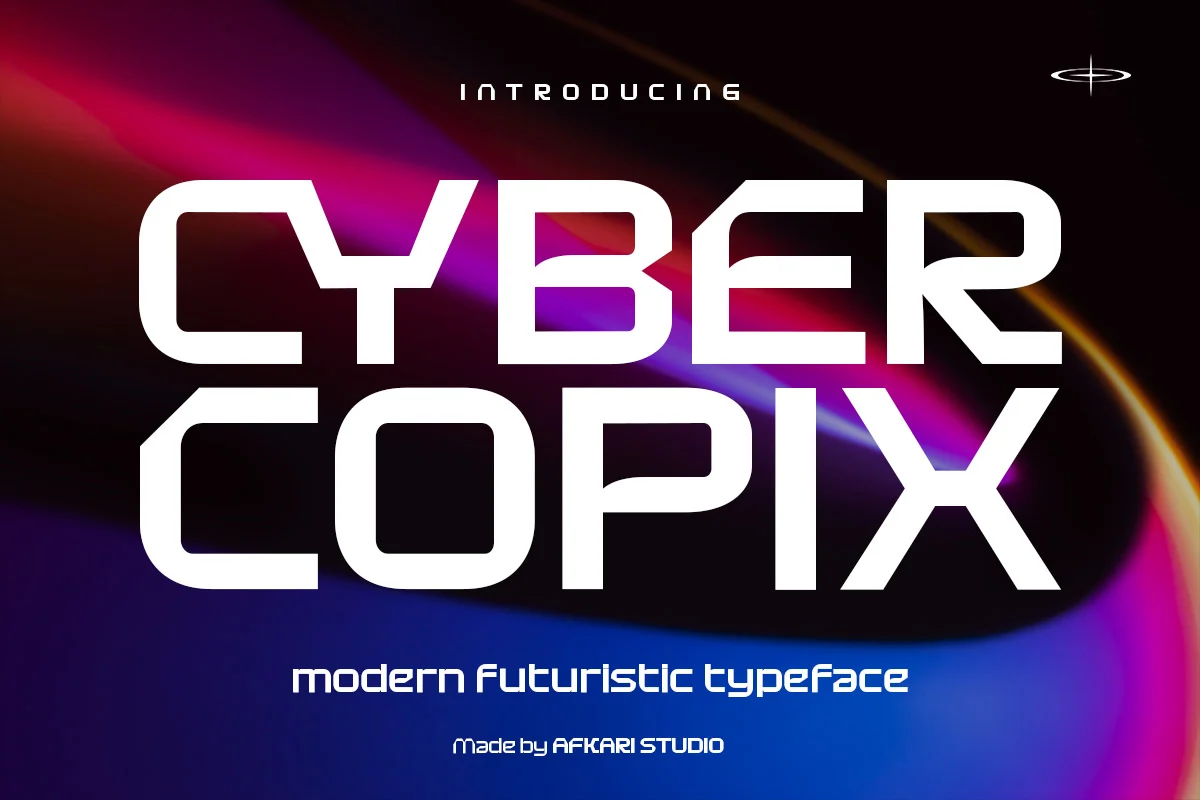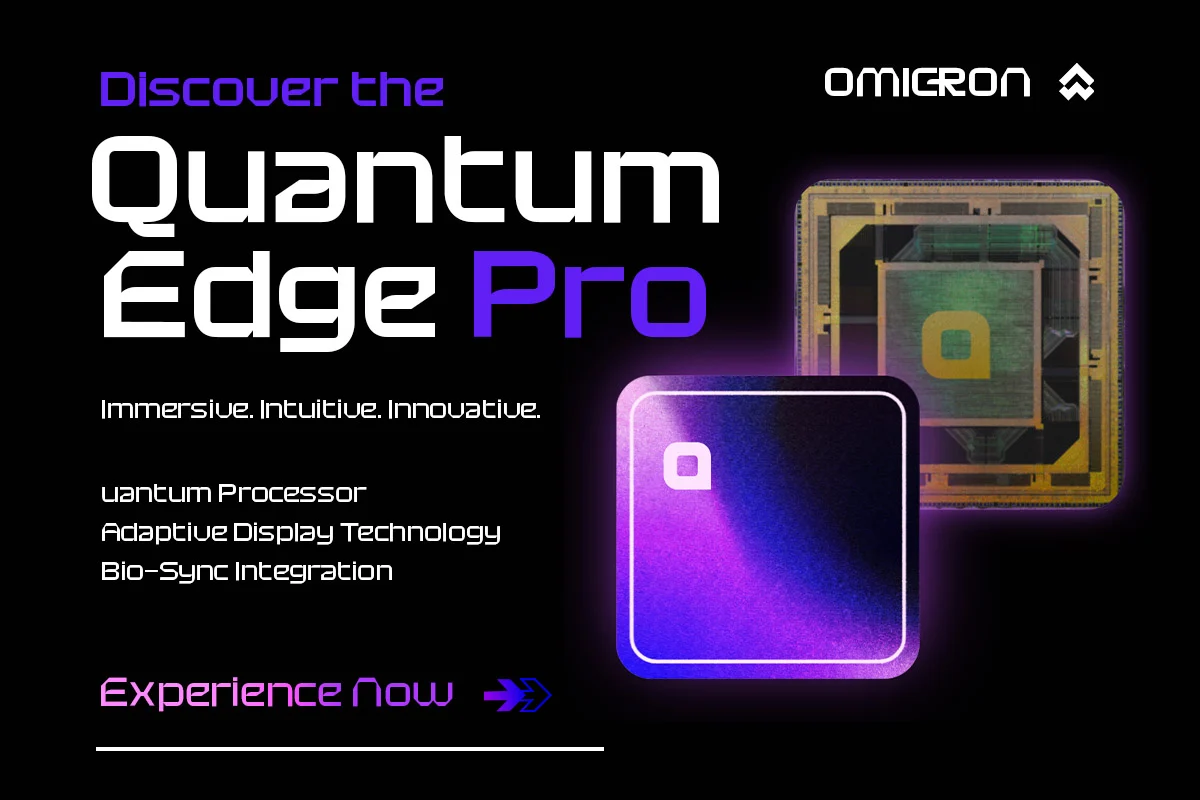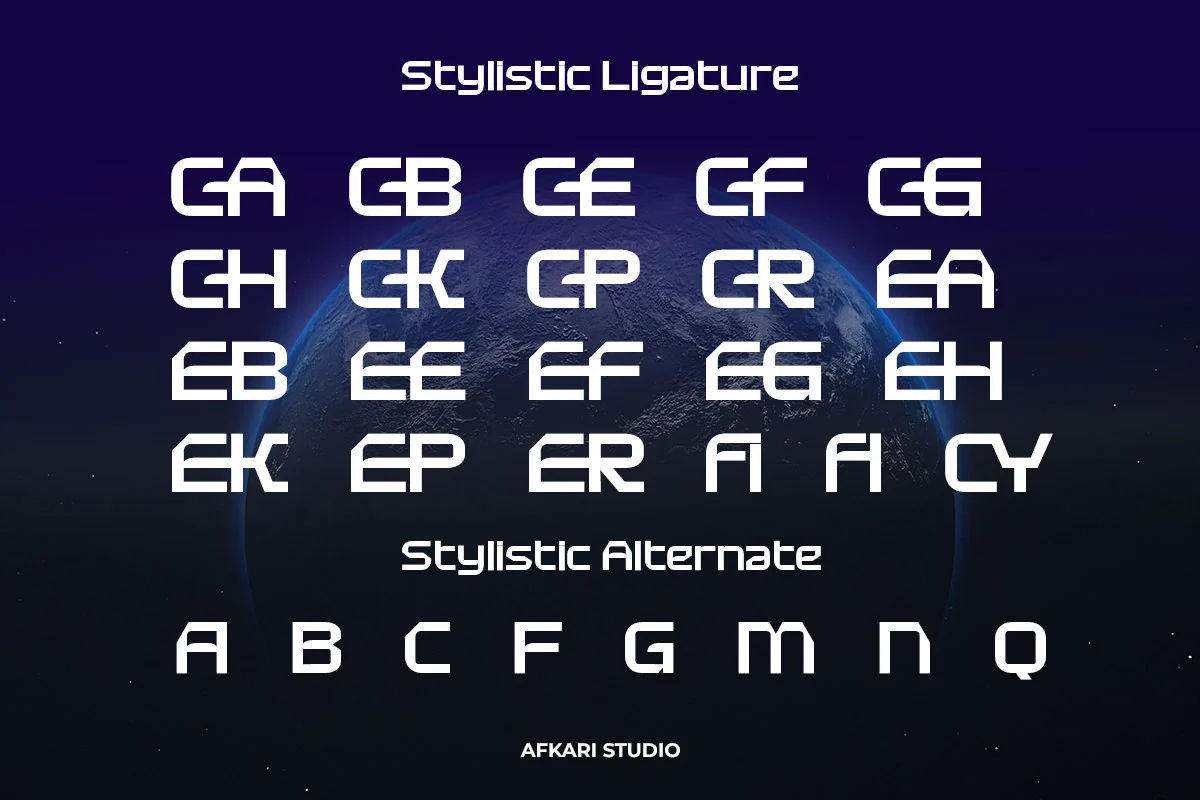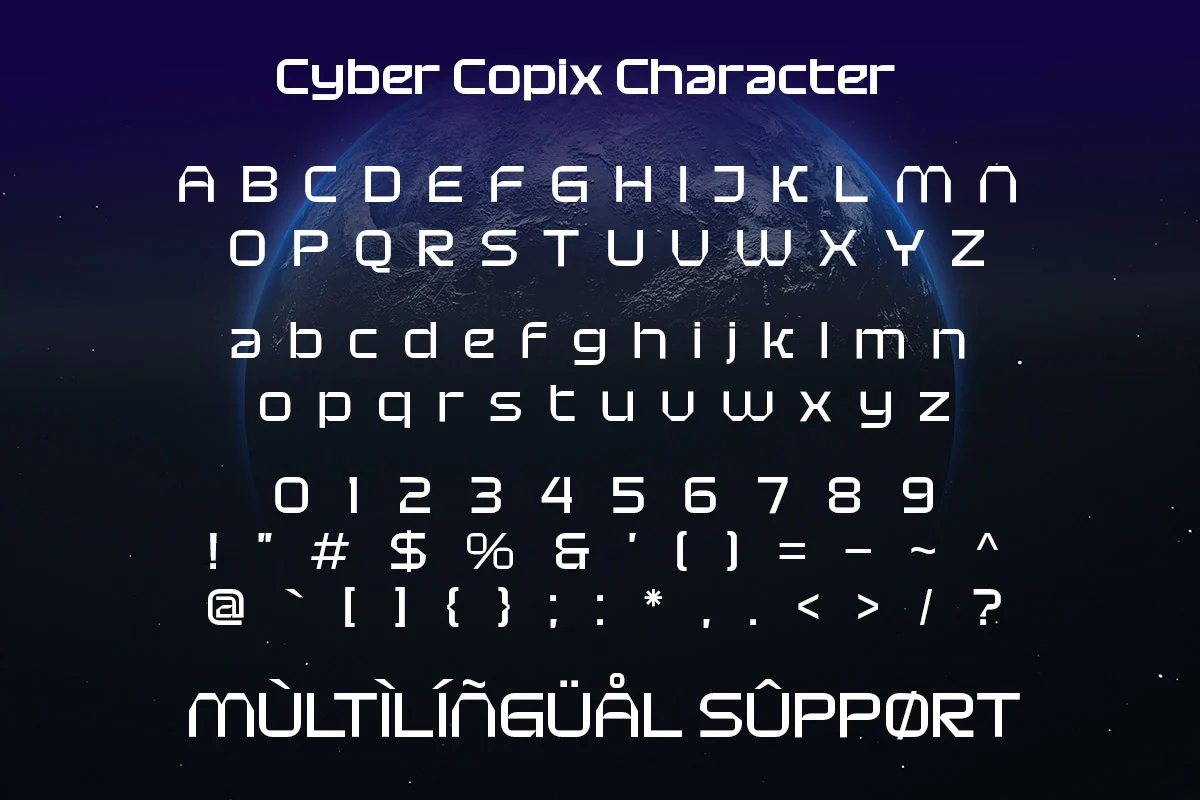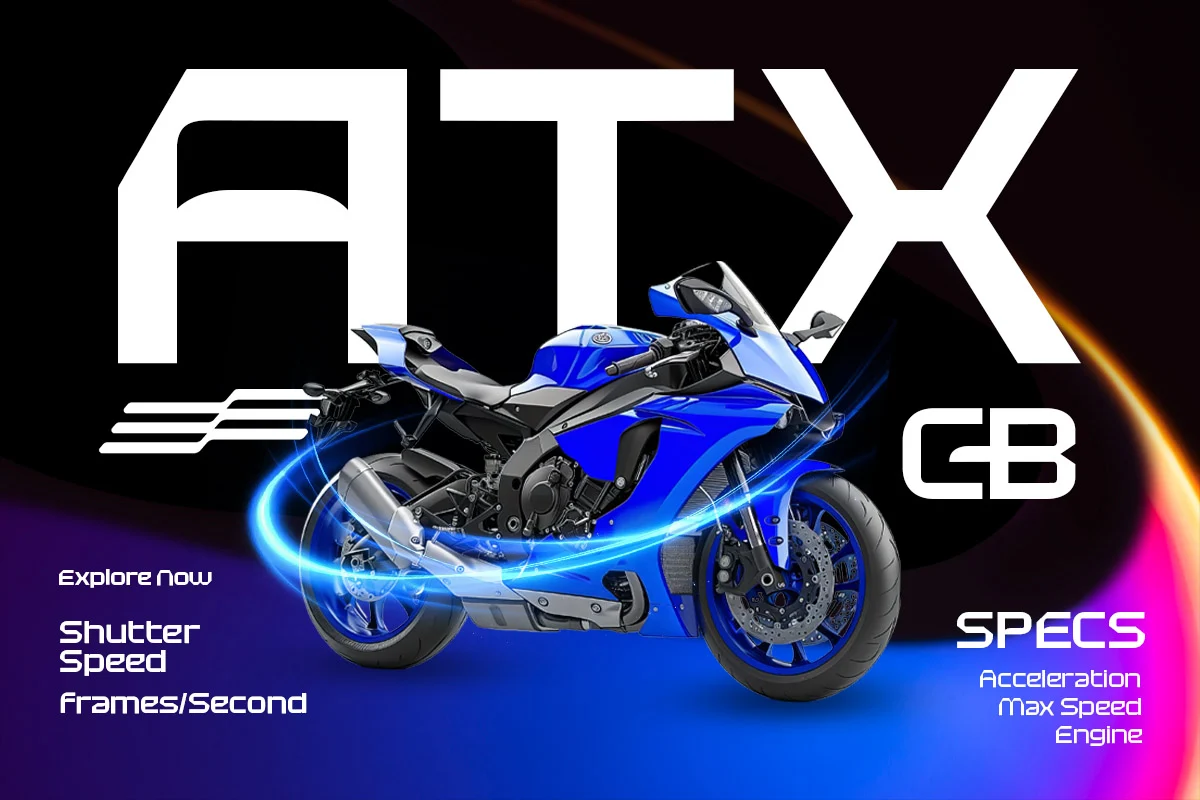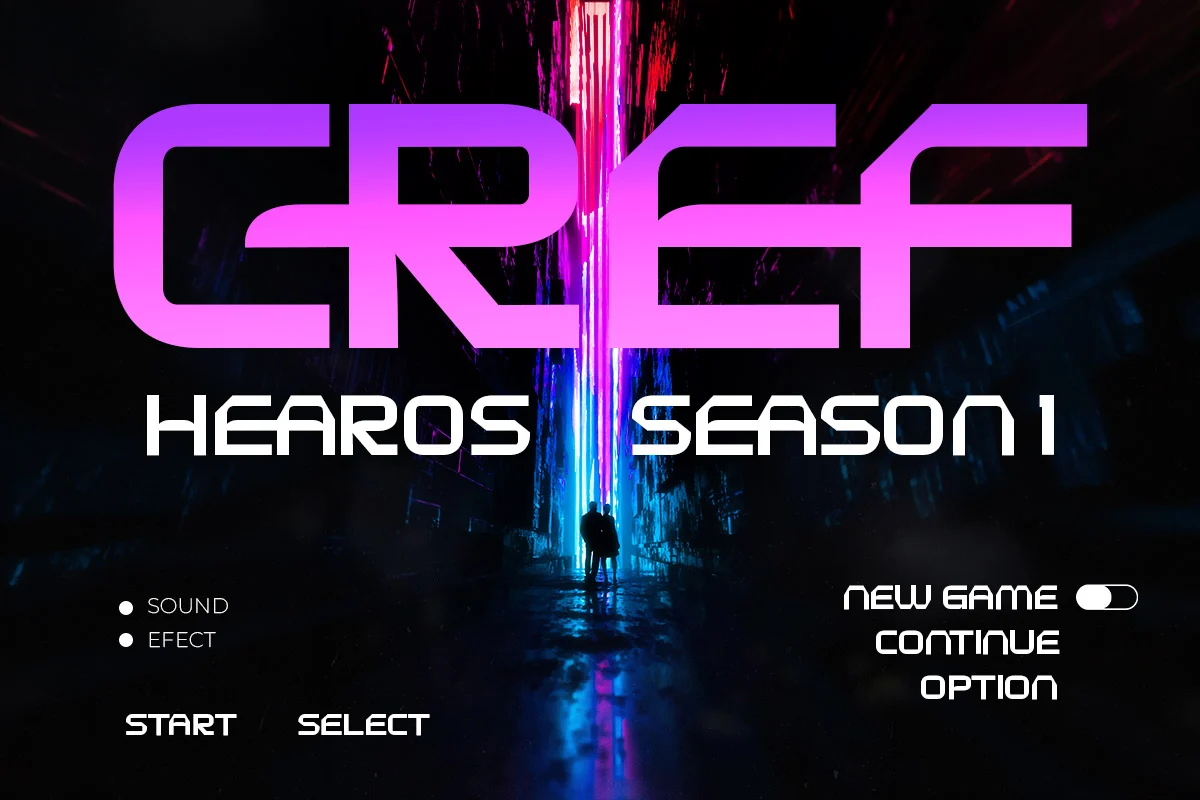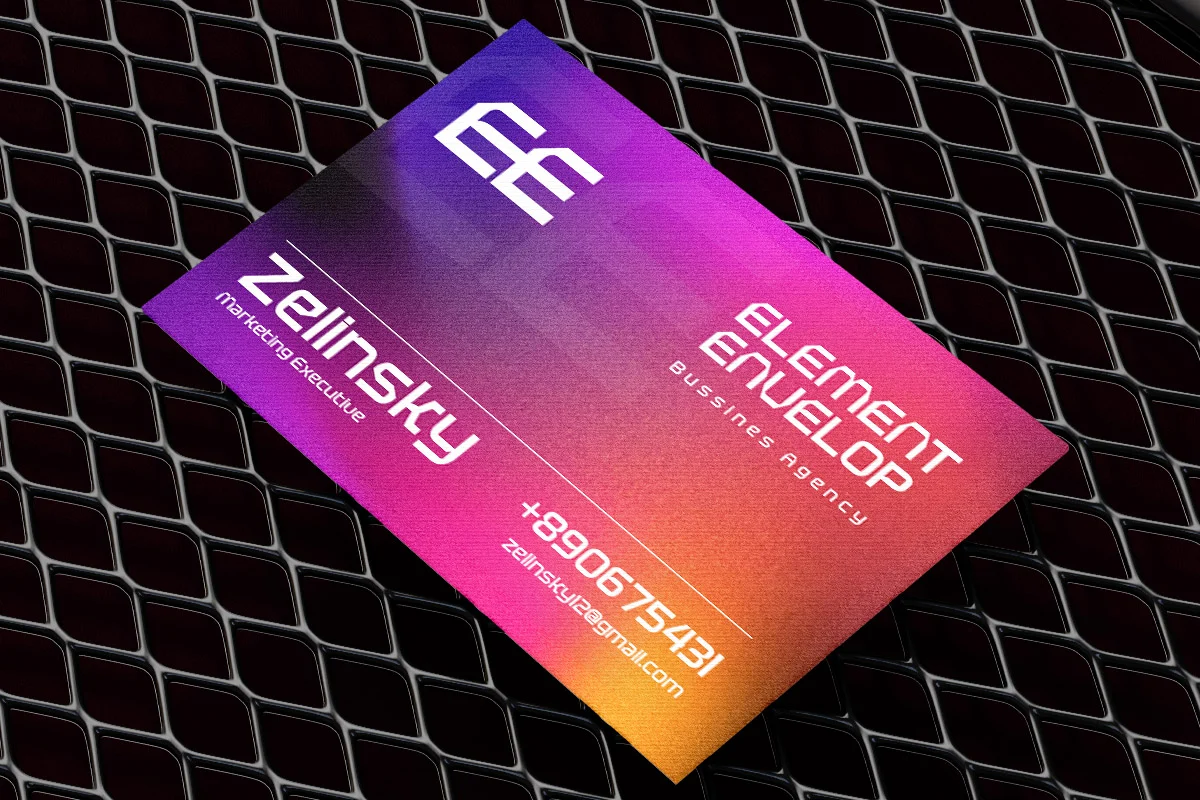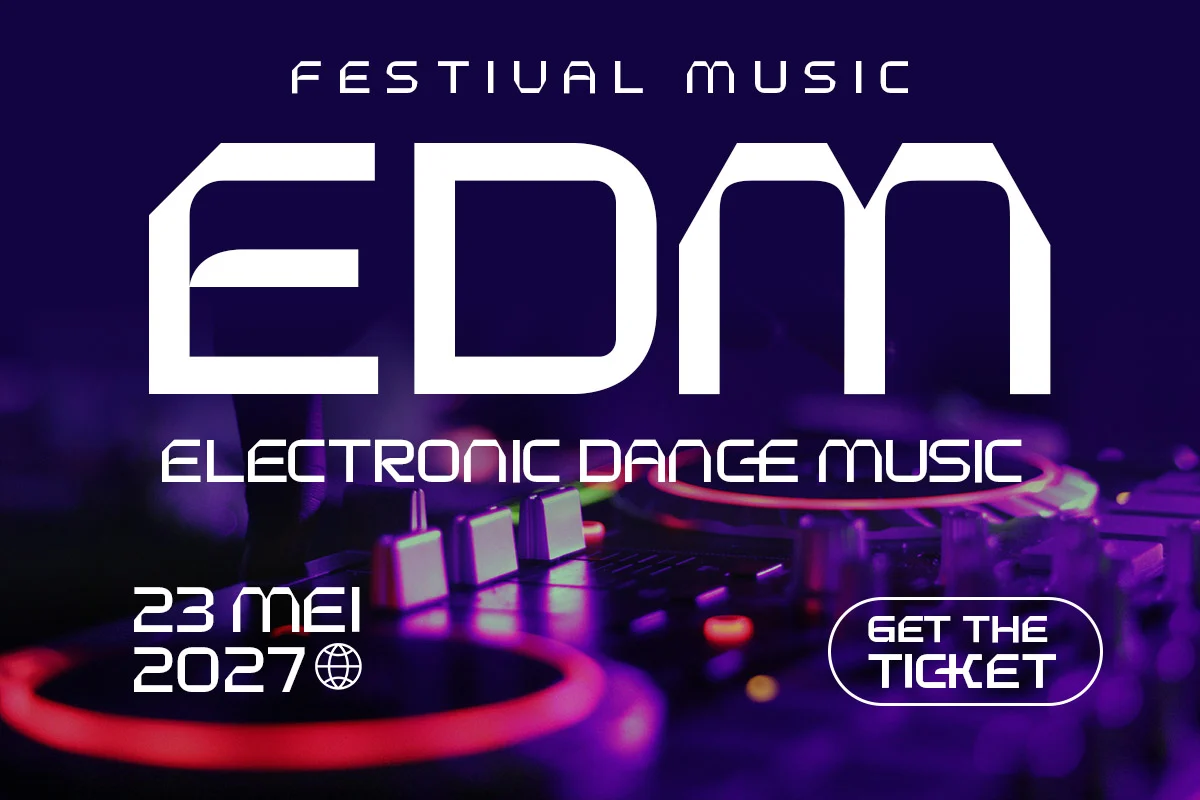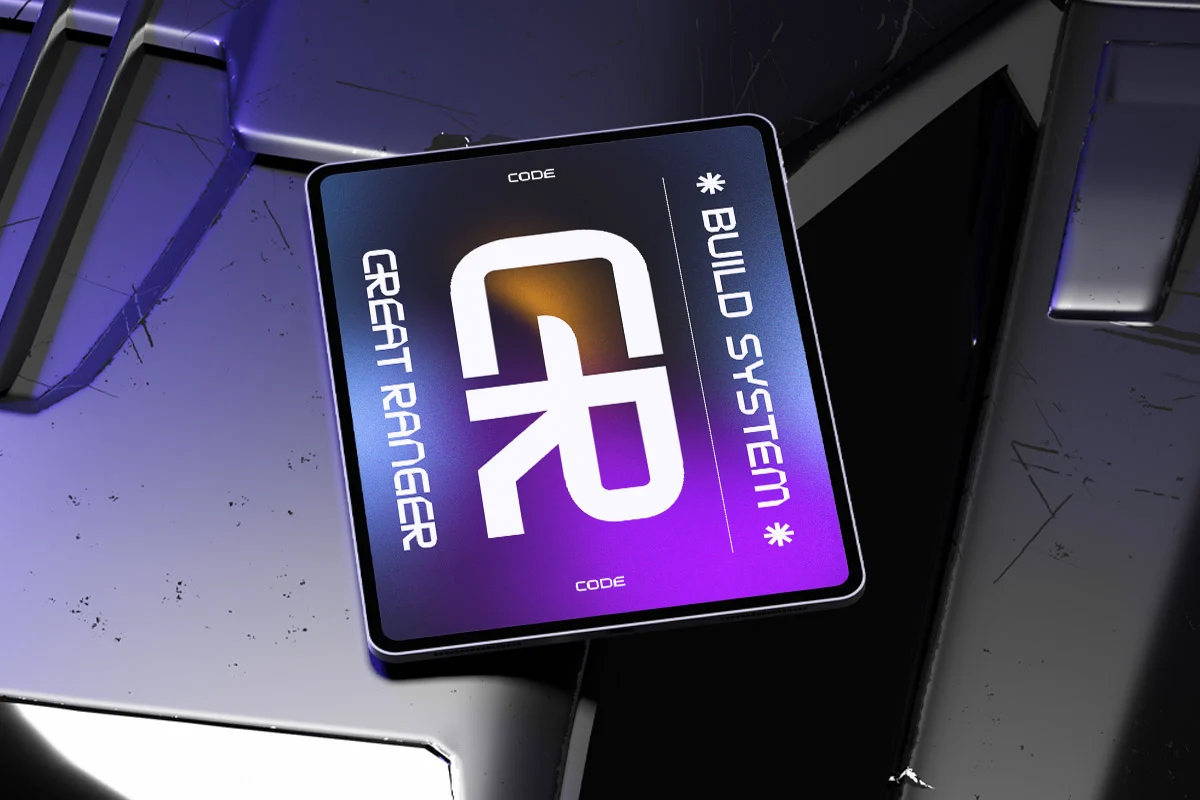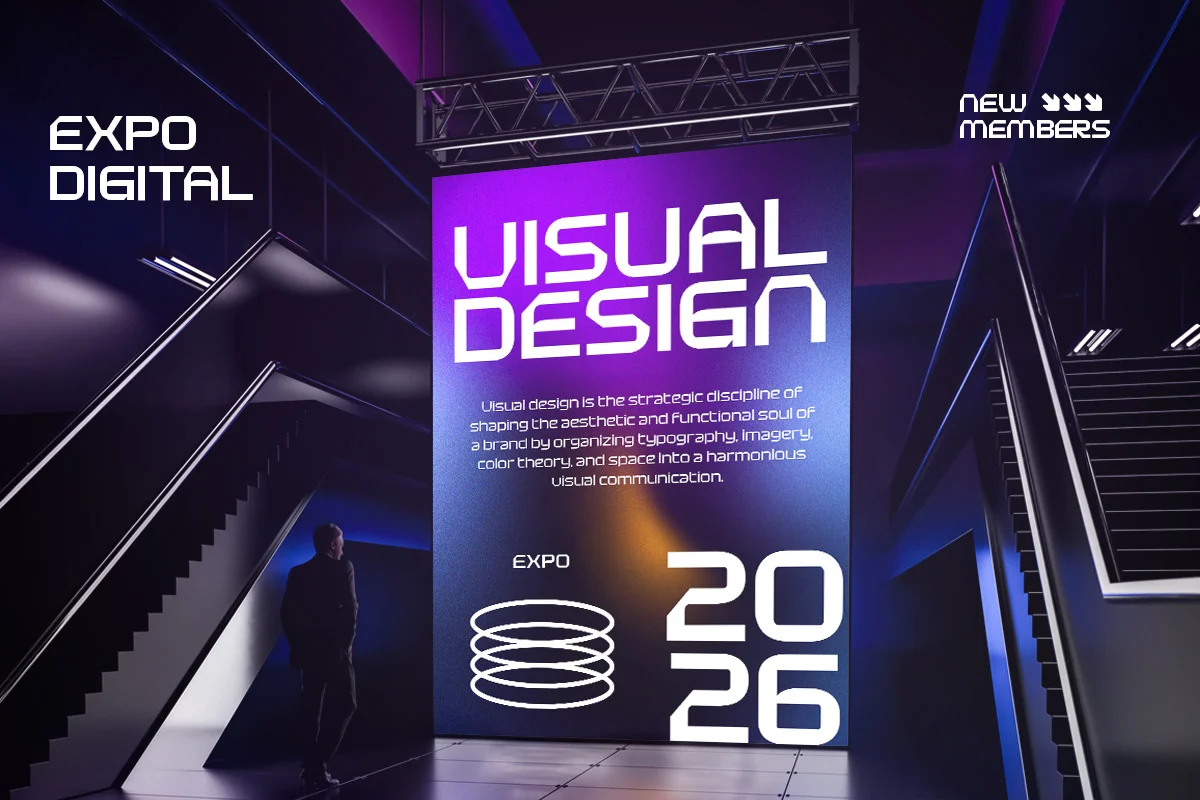
Cyber Copix is a modern futuristic sci-fi font for creators who want bold digital aesthetics and strong visual impact. Inspired by cyberpunk culture, advanced technology, robotics, and futuristic gaming worlds, this typeface combines sharp geometric shapes with sleek modern styling.
The Cyber Copix futuristic font features clean lines, a solid structure, and a strong high-tech personality. It creates a powerful futuristic atmosphere for both digital and print projects. This futuristic font is perfect for designs that need innovation, speed, and modern energy.
Whether you are creating esports branding, sci-fi movie titles, technology campaigns, gaming graphics, or futuristic UI concepts, Cyber Copix gives your typography a bold and professional futuristic identity.
Highlighted Features:
- Complete set of uppercase and lowercase letters, numerals, and punctuation
- Clean, sharp, and high-tech visual style
- Futuristic geometric letterforms with modern sci-fi aesthetics
- Multilingual support including characters such as ä, ö, ü, Ä, Ö, Ü, ß, ¿, and ¡
Step into the future with Cyber Copix, a bold sci-fi typeface built to power your creative projects with modern digital energy, futuristic style, and unforgettable visual impact.